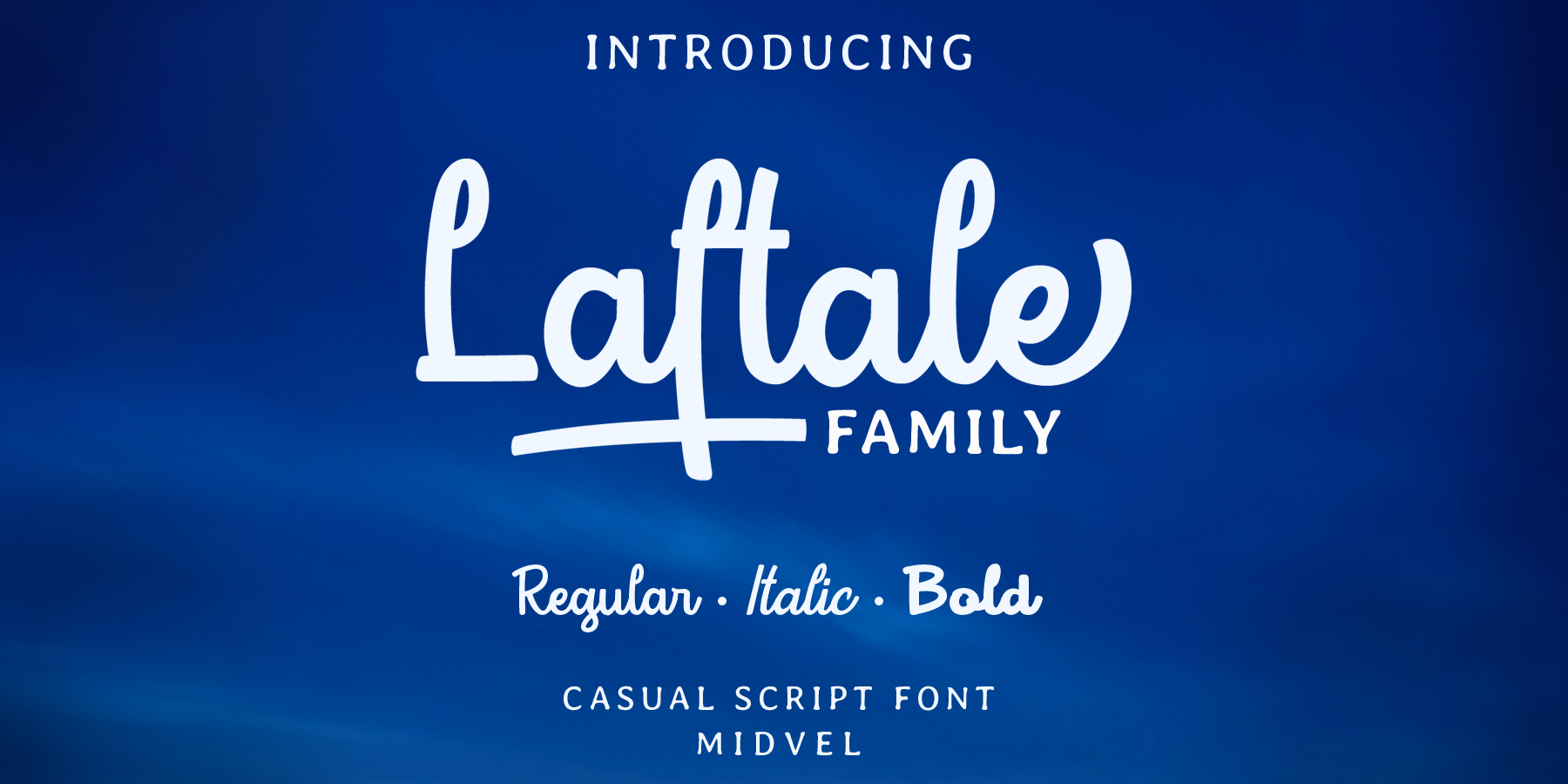
The Laftale Font is perfect for storytelling brand designs, narrative marketing campaigns, book publishing projects, literary magazine layouts, creative writing workshops, fairy tale illustrations, children's book covers, and whimsical editorial designs. This versatile typeface excels in publishing houses, storytelling brands, creative writing organizations, entertainment companies, and any business seeking to communicate narrative charm, literary elegance, and captivating storytelling magic in their visual communications.
What makes Laftale Font so exciting is its enchanting, narrative character that perfectly captures the essence of compelling storytelling while maintaining exceptional readability and contemporary functionality. The font features imaginative letterforms with whimsical curves, story-inspired proportions, and distinctive details that evoke the magic of great tales and literary adventures. Its storytelling design philosophy makes it ideal for brands that want to communicate creativity, imagination, and the kind of narrative excellence that captivates audiences and brings stories to life.
The Laftale Font family includes comprehensive weight variations: Light, Regular, Medium, Semi Bold, Bold, and Black versions, each available in upright and italic styles. Additionally, it offers storytelling alternates, whimsical decorative elements, and narrative flourishes that enhance the font's literary appeal. The family includes extended character sets with multilingual support and specialized glyphs for publishing and creative writing applications.
When you choose Laftale Font Free Download, you're selecting a typeface that embodies narrative magic and storytelling excellence while ensuring exceptional functionality across all modern applications. This font seamlessly combines literary inspiration with contemporary design requirements, making it perfect for both digital platforms and traditional print publications. The carefully crafted letterforms maintain perfect legibility while the distinctive storytelling qualities create memorable brand experiences that resonate with audiences seeking authentic narrative experiences and creative inspiration.
Whether you're developing literary brand identities, creating storytelling marketing materials, designing publishing projects, or establishing a visual identity that celebrates narrative excellence and creative imagination, this font delivers outstanding charm and literary appeal. The Laftale Font transforms your content into captivating communications that tell compelling stories and reinforce your brand's commitment to narrative excellence and the timeless art of great storytelling.
This remarkable typeface represents the perfect harmony between literary inspiration and typographic excellence. Download this enchanting font today and discover how storytelling typography can enhance your projects, create narrative connections, and establish your brand's association with the magical world of compelling tales and creative expression.